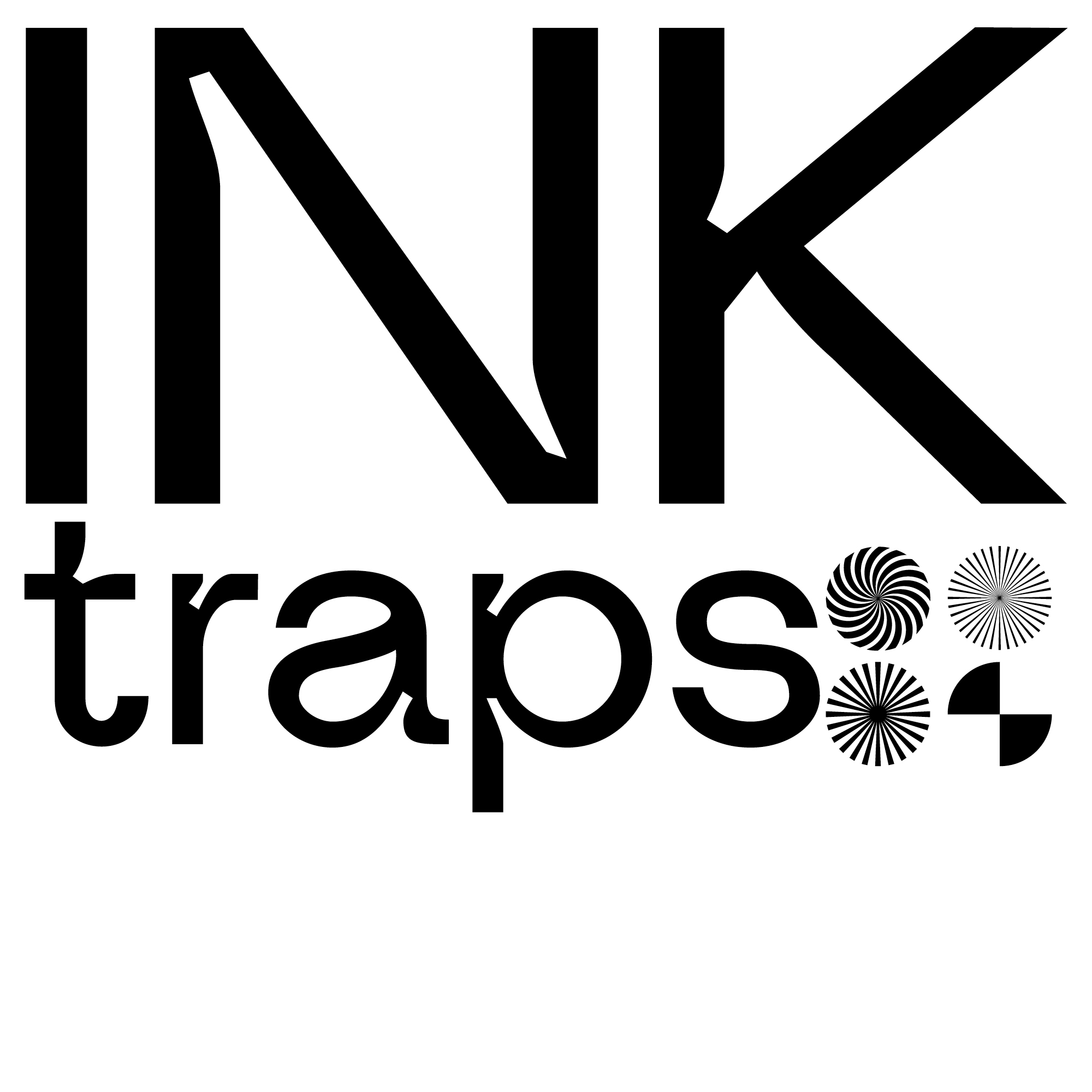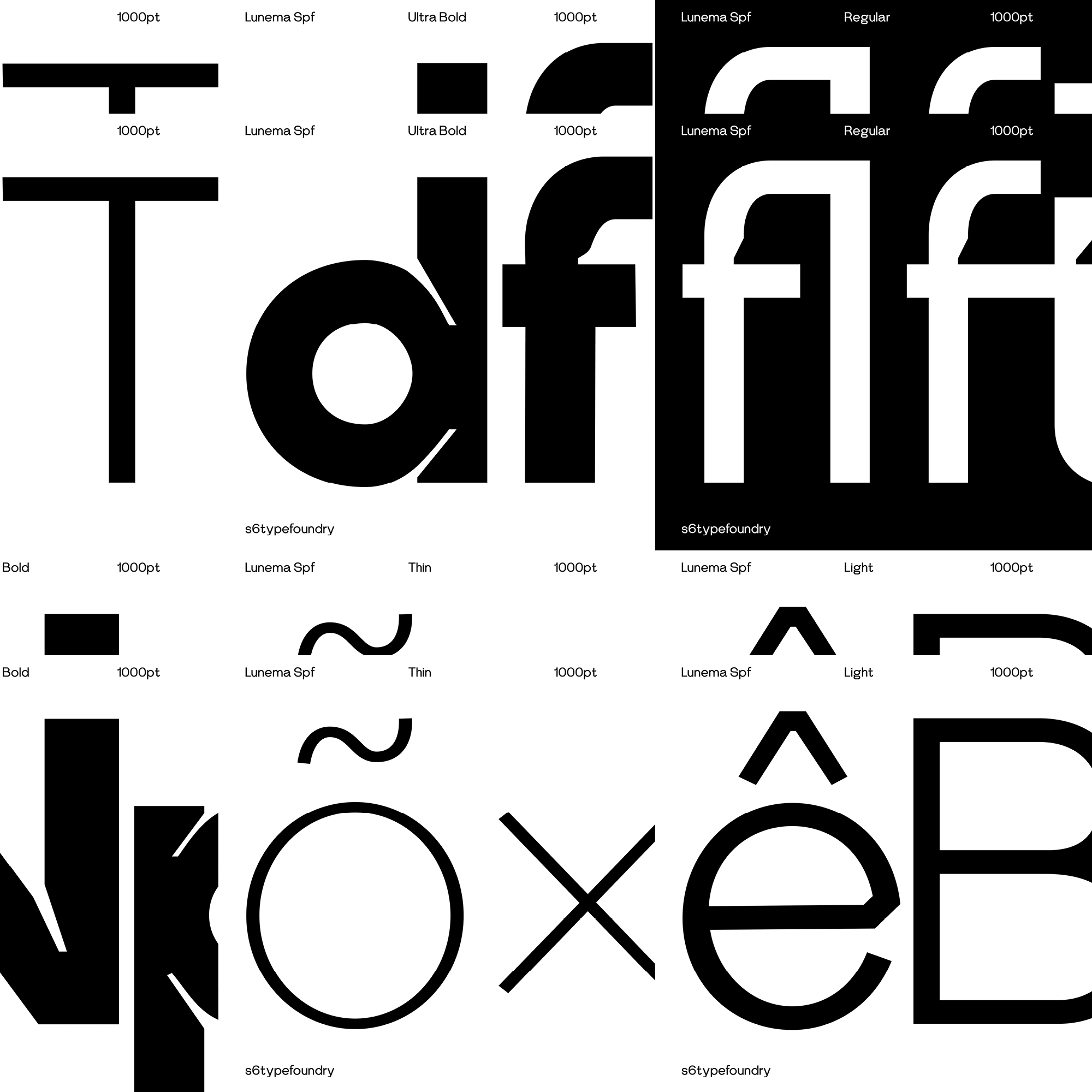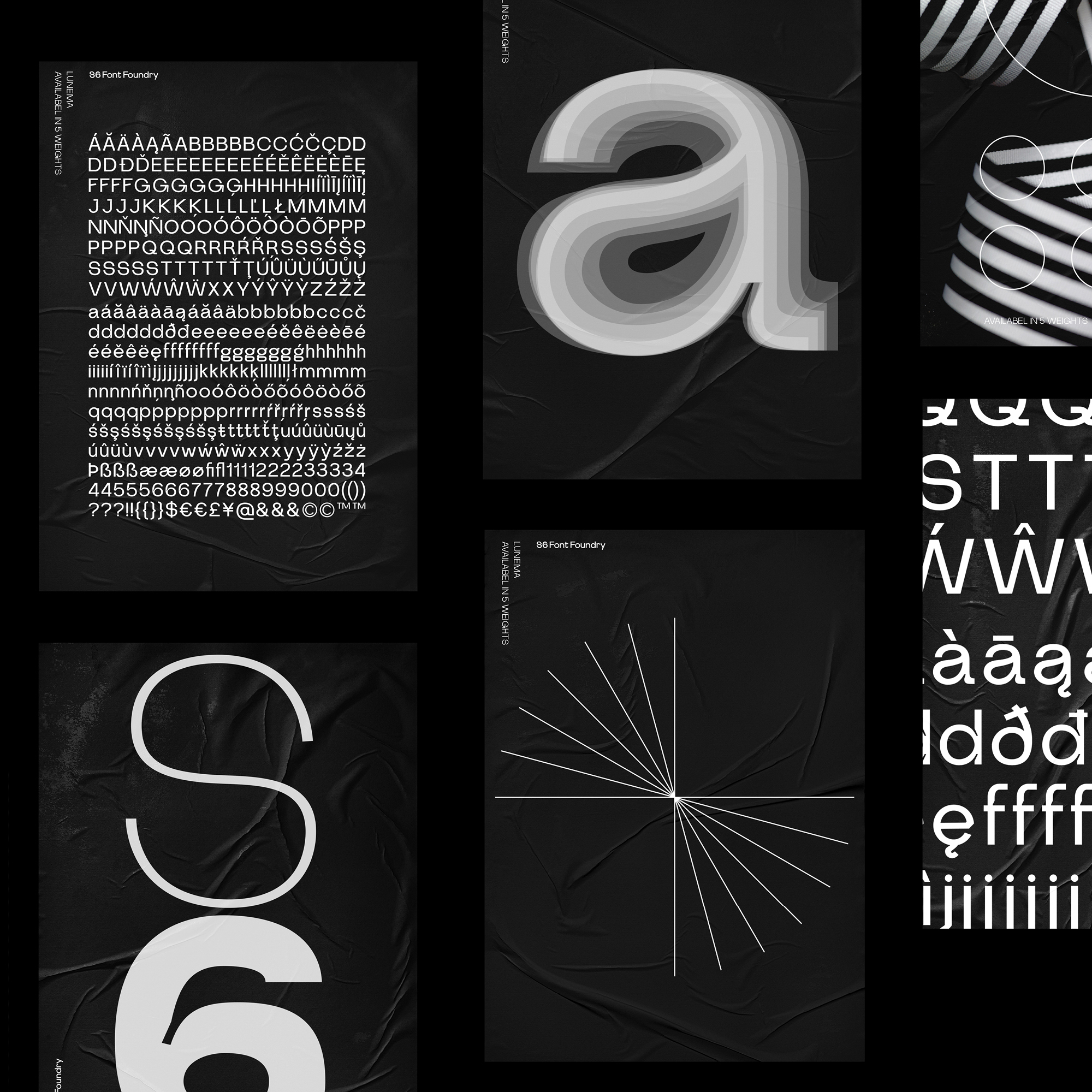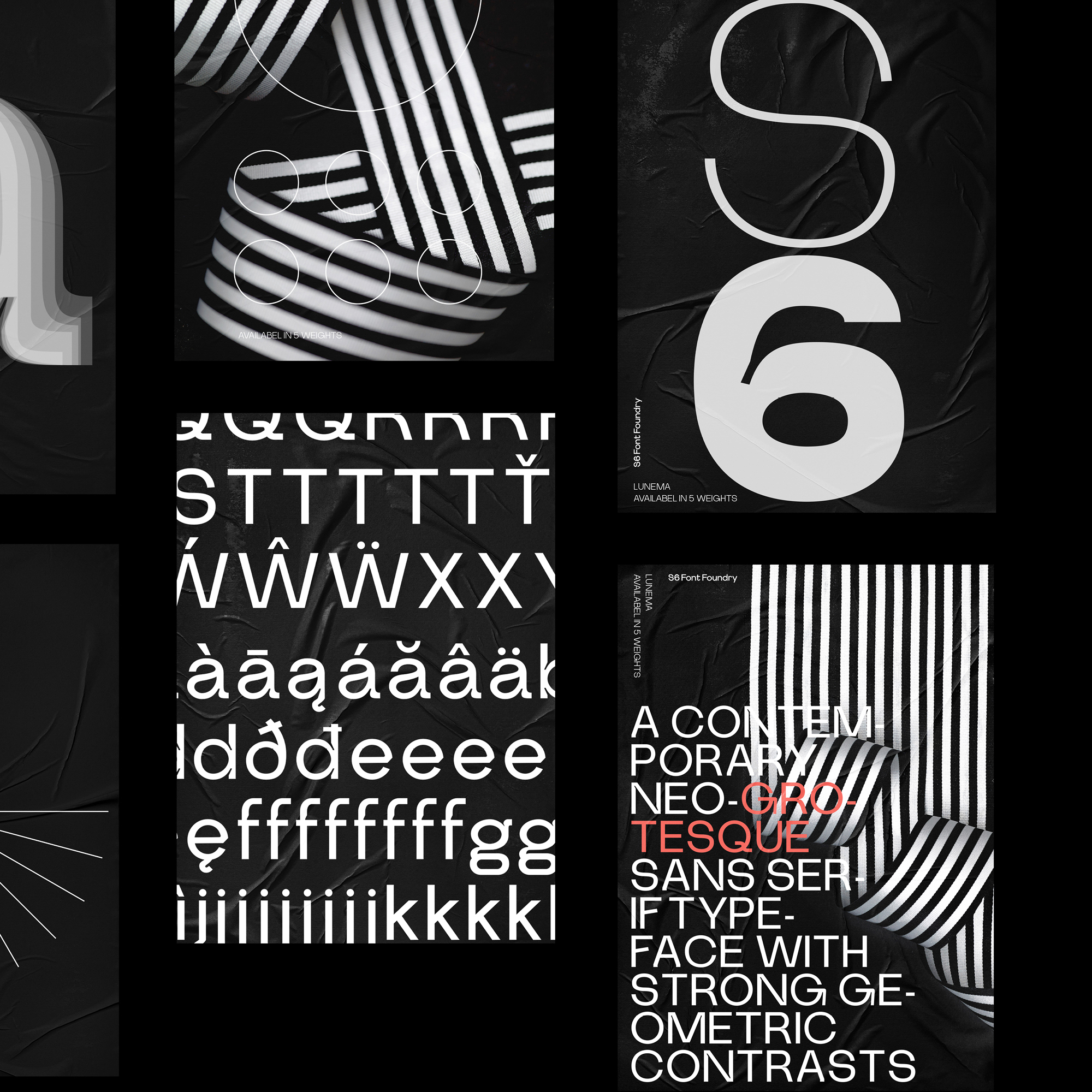
Lunema Sans
Inktrap Sans Serif
Lunema Sans uses sharply defined inktraps and controlled internal cuts to give a functional structure a distinctive visual edge. These details open the letterforms, strengthen their rhythm and become increasingly expressive as the type grows in scale.
From compact interface typography to editorial layouts, identities and commanding display text, Lunema balances clarity with character. Its weights and italics allow information to move between quiet organisation and strong graphic emphasis while maintaining a consistent and recognisable voice.